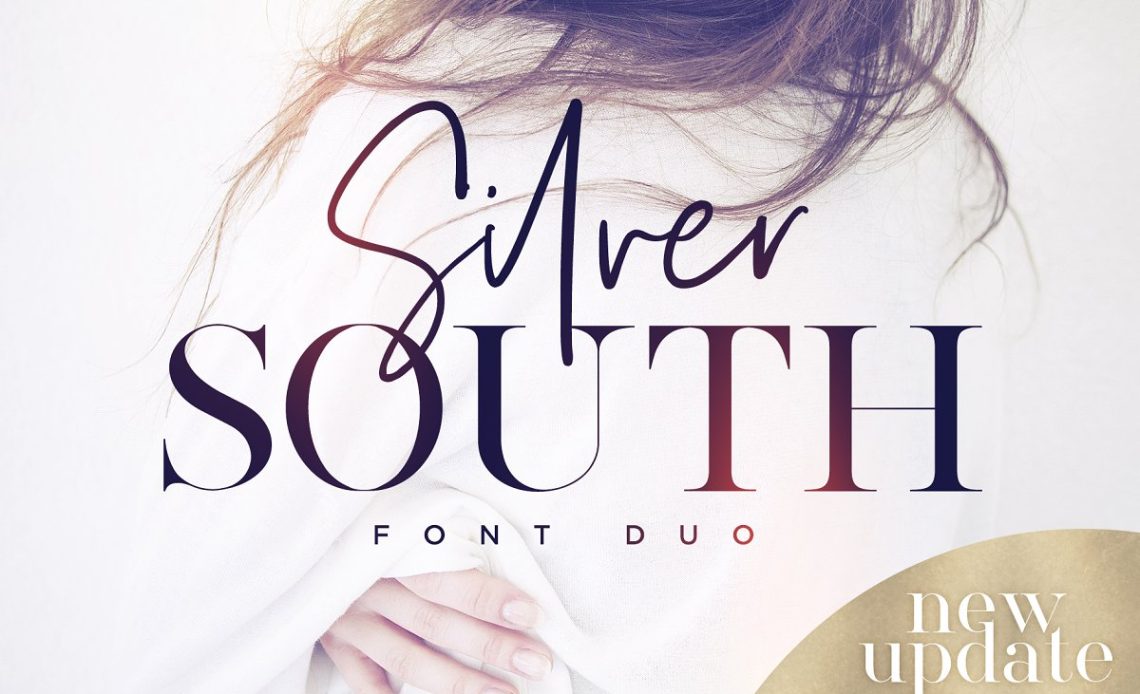
Introducing the Silver South Font Duo, a perfect blend of class and modernity created by Sam Parrett. This dynamic duo is ideal for anyone looking to add a touch of elegance to their design projects. The Silver South Font Duo offers a beautiful typographic harmony for a range of projects, including logos & branding, wedding designs, social media posts, advertisements, and product designs.
With its stylish didot-style serif font and a free-flowing, expressive script companion, the Silver South Font Duo is the perfect match for creating stunning designs. This pair offers four distinct font files, designed to work as perfect companions or simply as strong standalone typefaces.
The first file is the Silver South Script, which is a clean, free-flowing script font containing upper and lowercase characters, numerals, and a large range of punctuation. The second file, Silver South Script Alt, offers a completely new set of upper and lowercase characters, providing an additional layout option. If you are looking to create a custom-made style or try a different word shape, this is the perfect option for you.
The third file is the Silver South Serif, which is a classy serif font containing upper and lowercase characters, numerals, and a large range of punctuation. This font creates the perfect pairing contrast with the Silver South Script fonts. Finally, the Silver South Ligatures file offers a range of ligatures that can be generated by typing any a-z lowercase character or A-L uppercase character, making it easier to access special characters without the need for opentype software.